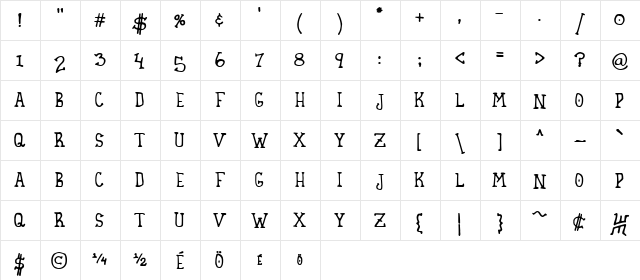
Homespun Regular
| Designer | S. John Ross |
Design Context for Homespun Typeface
Homespun offers clean, dependable letterforms without strong stylistic allegiance, making it a practical choice for designers who need flexibility.